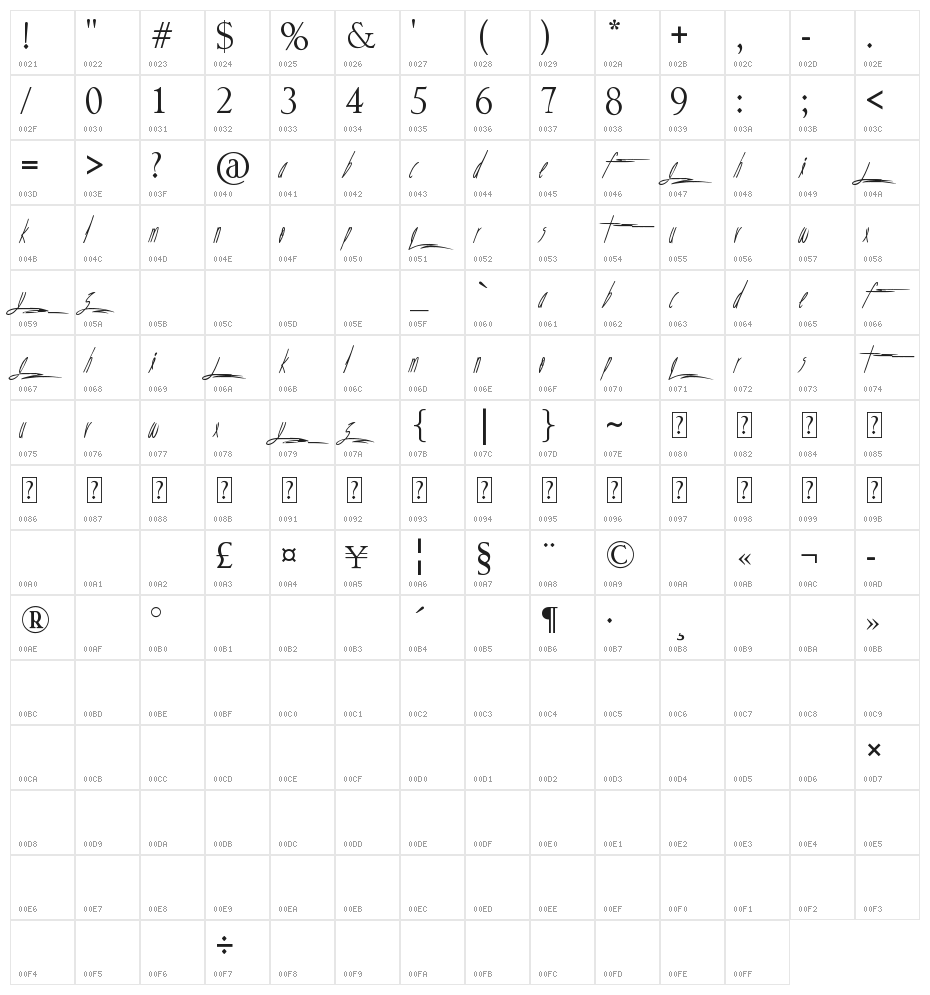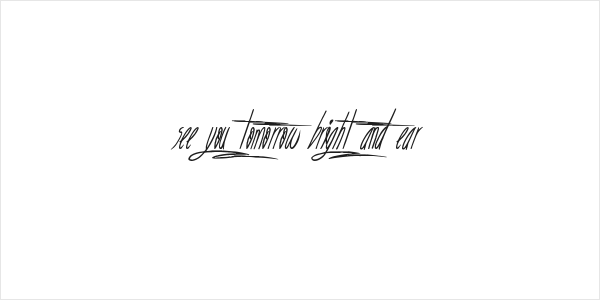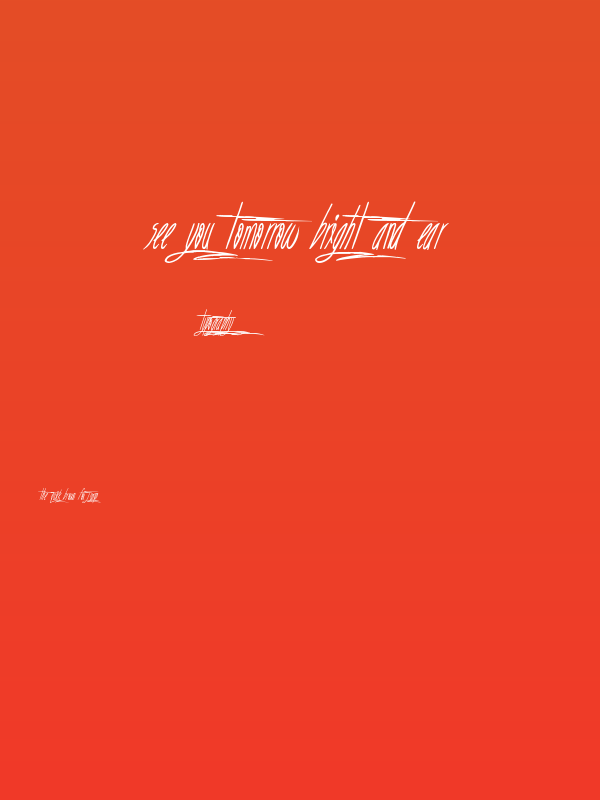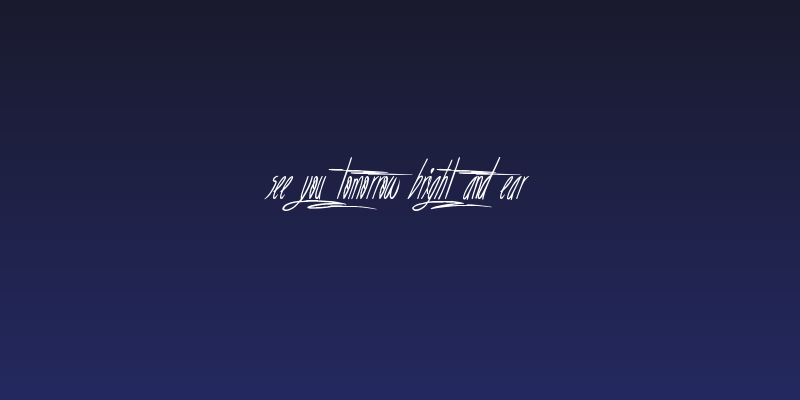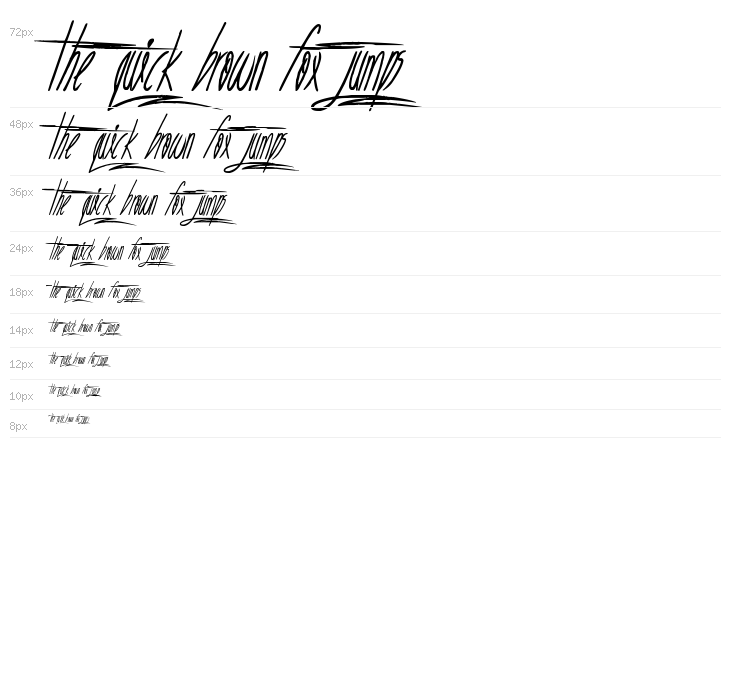
See you tomorrow bright and ear Font
See you tomorrow bright and ear Description
This font features a highly stylized and artistic script with elongated, sweeping strokes that give it a dynamic and energetic appearance. The uppercase and lowercase letters are intricately designed, with a sense of motion and fluidity. The numerals are bold and clear, contrasting with the script's delicate lines. Special characters are included, maintaining the font's unique style. This font is ideal for projects that require a touch of elegance and flair, such as invitations, branding, or artistic designs. Its distinctiveness makes it stand out, while its readability ensures it remains functional.
| Use Case | Logos, Invitations, Artistic designs |
| Proposed Projects | Ideal for invitations, branding, artistic designs, and any project needing elegance and flair. |